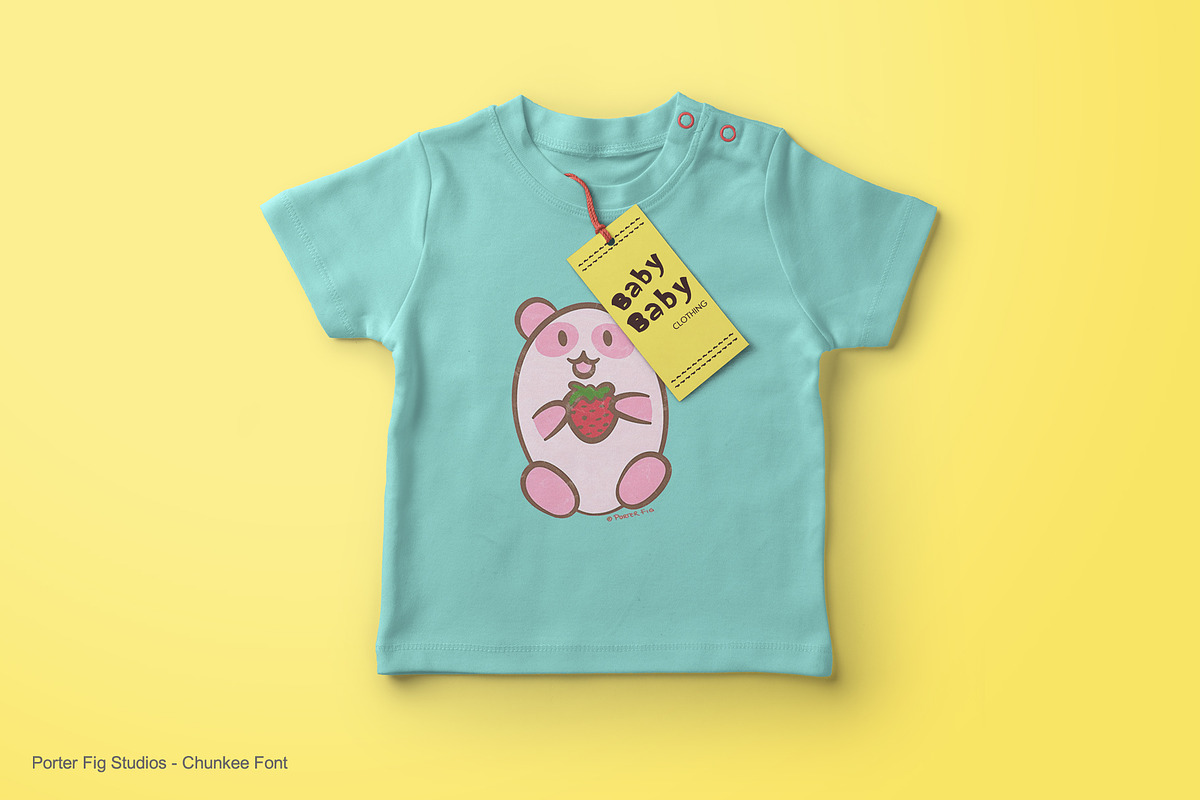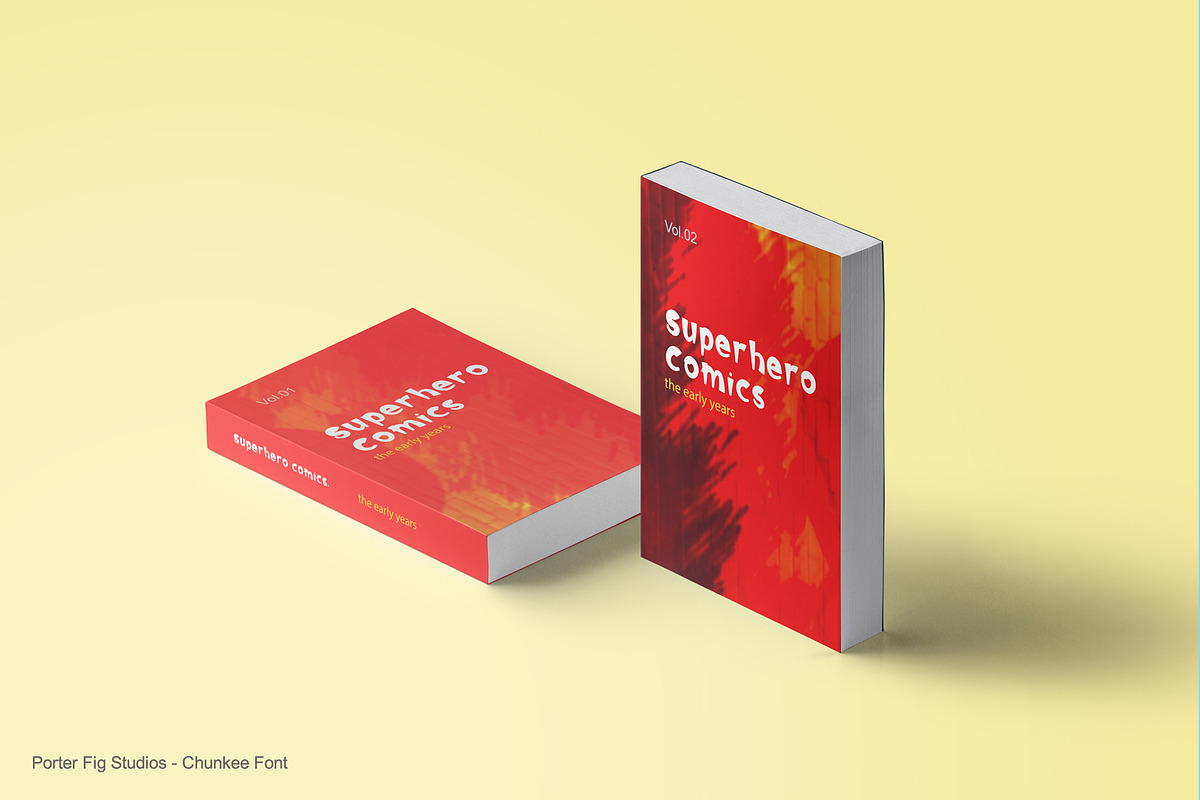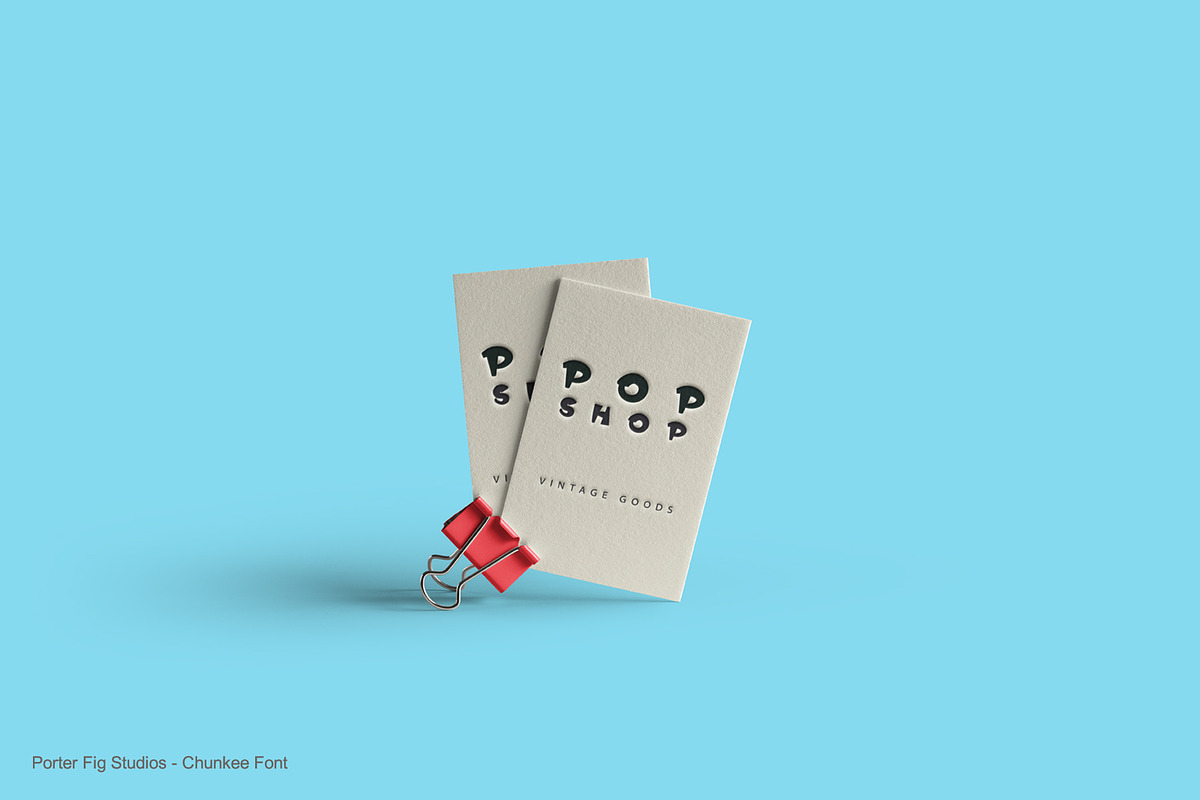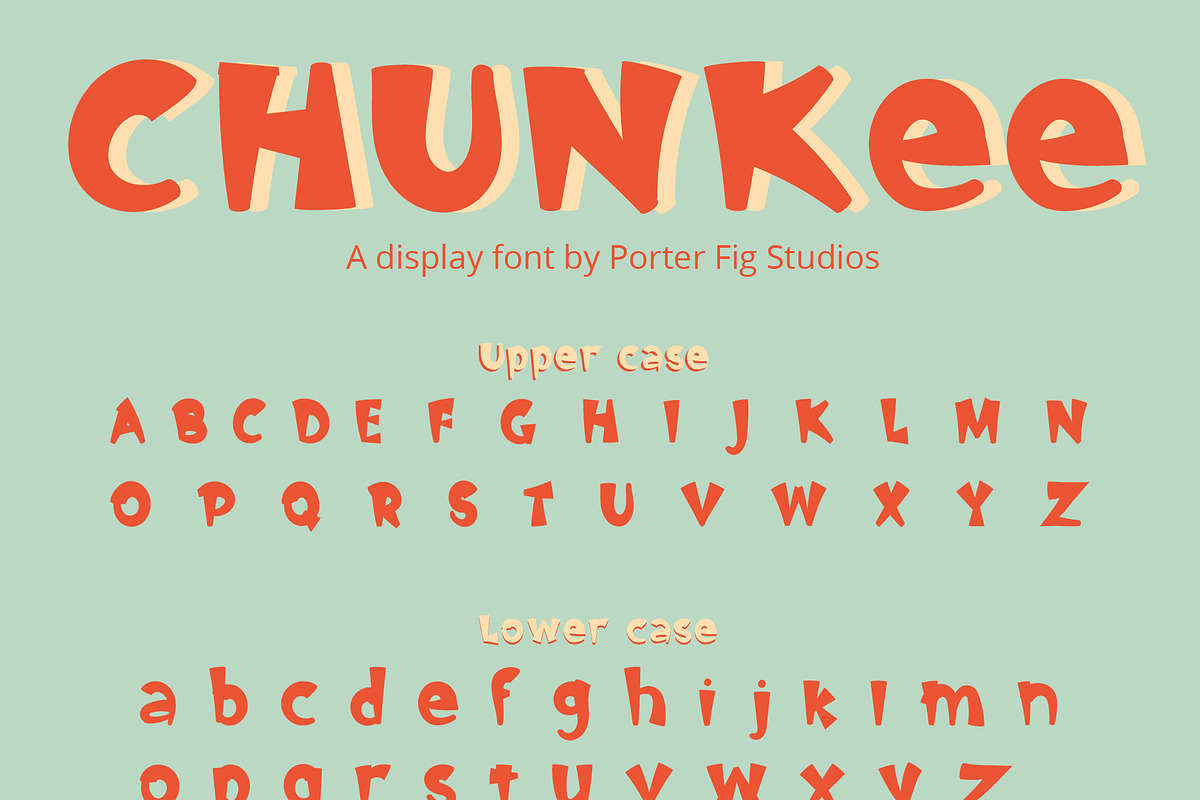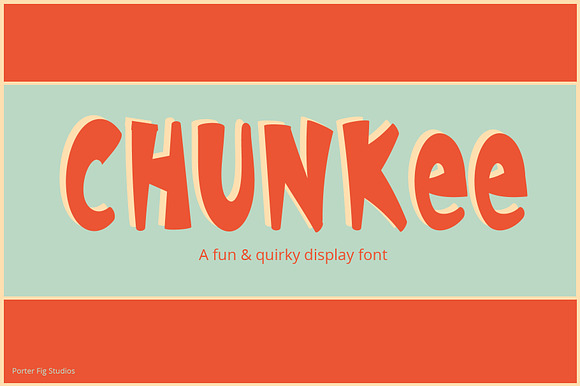
Chunkee Bold Quirky Display Font
Introducing Chunkee... a bold quirky sans serif display font.
This font would be good for book covers, children't books, movie posters, flyers, social media, blogs and more.